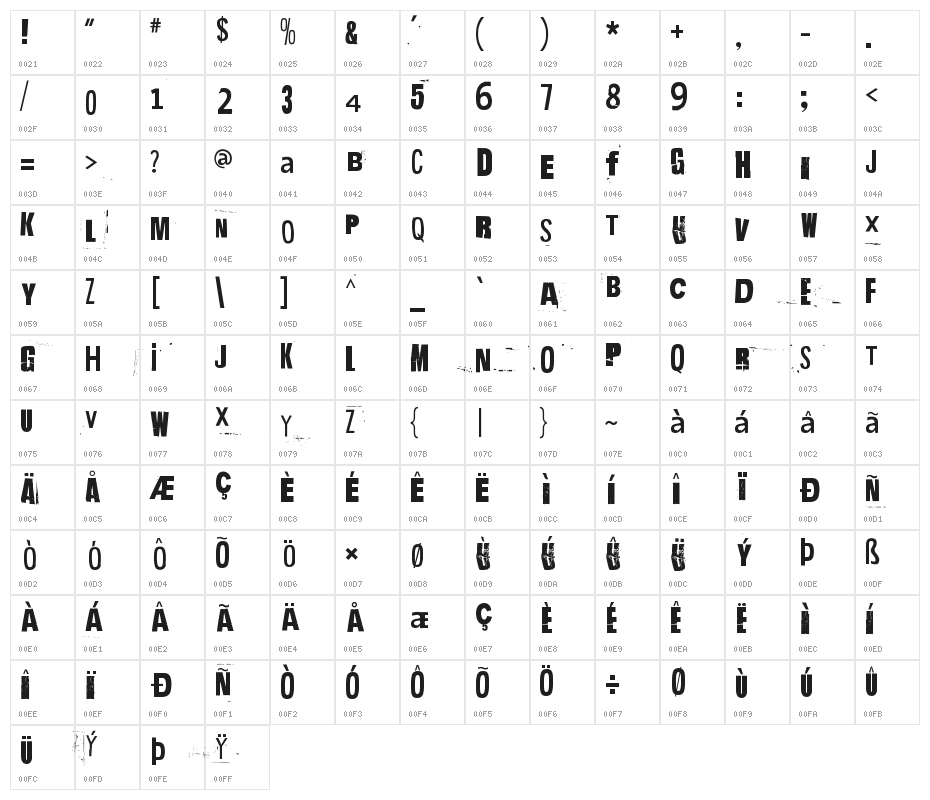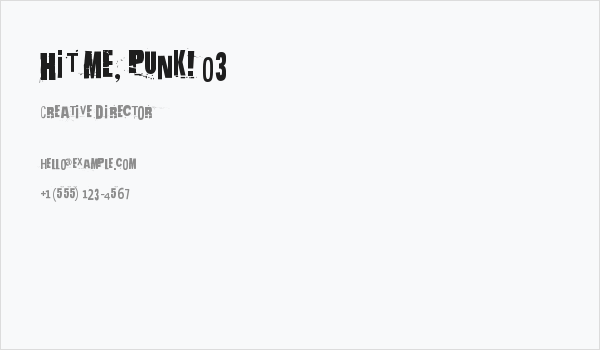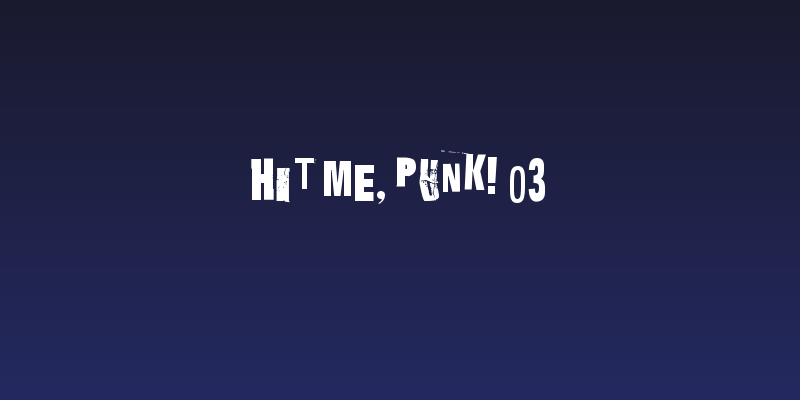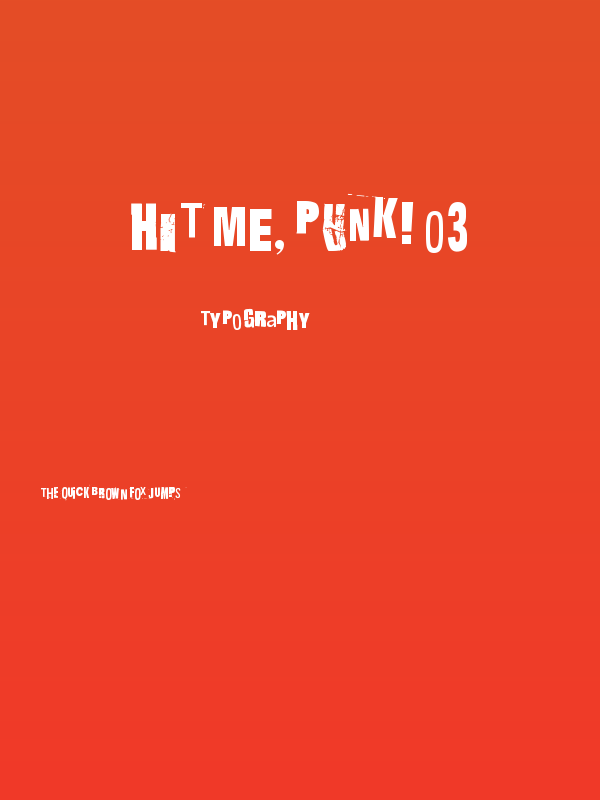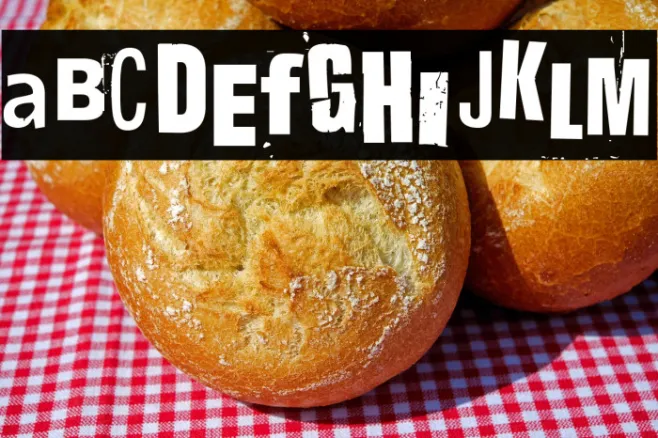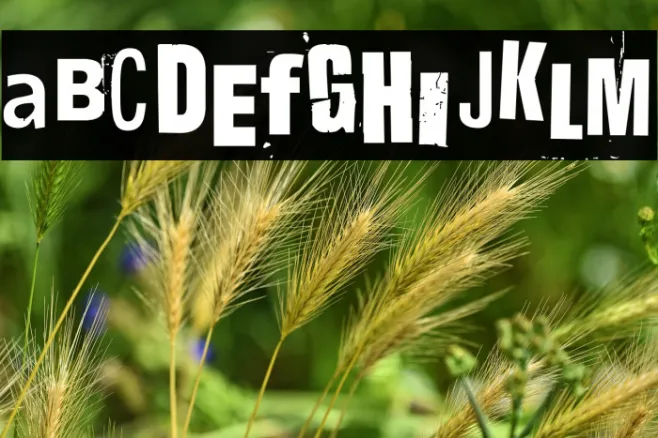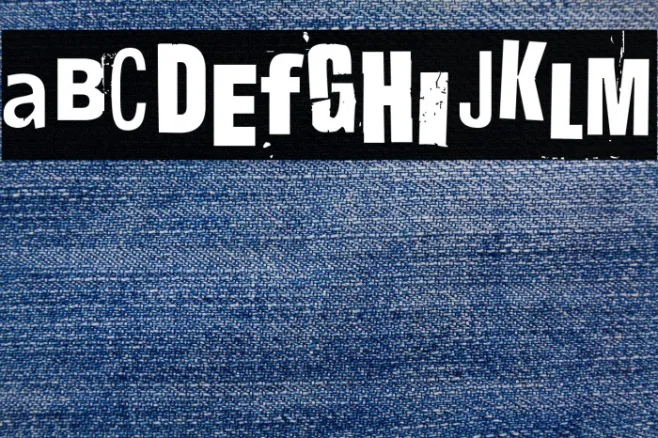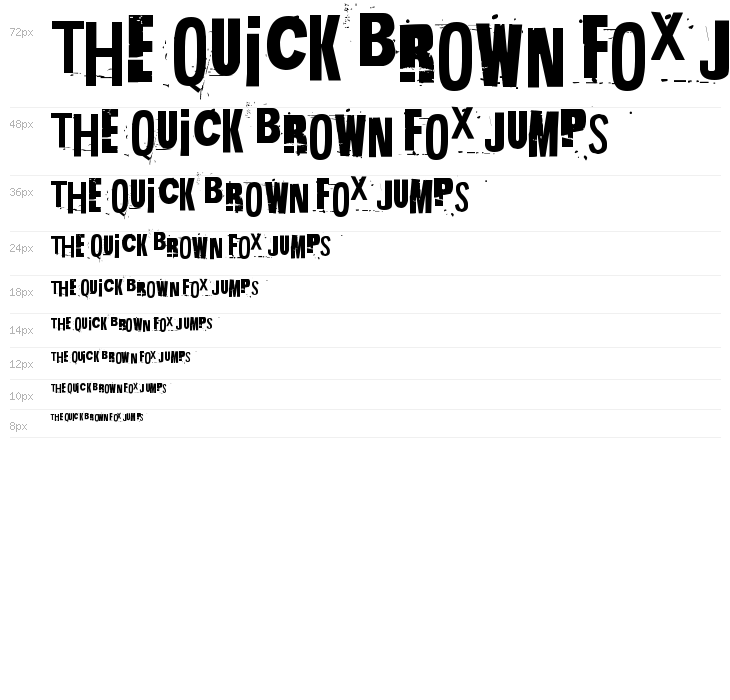
Hit me, punk! 03 Font
Hit me, punk! 03 Description
This font exudes a rebellious and edgy vibe, characterized by its distressed and grungy appearance. The letters are bold and uneven, with a rough texture that gives an impression of being worn or torn. The uppercase and lowercase letters are mixed in style, adding to the chaotic and punk aesthetic. The numbers and special characters maintain this distressed look, making the font suitable for designs that aim to capture a raw, urban feel. The irregularities in the letterforms suggest a hand-crafted or DIY approach, typical of punk and underground culture.
| Overall Style | Punk, Grunge, Urban |
| Proposed Projects | Ideal for music album covers, posters, streetwear branding, and any project needing a gritty, urban edge. |